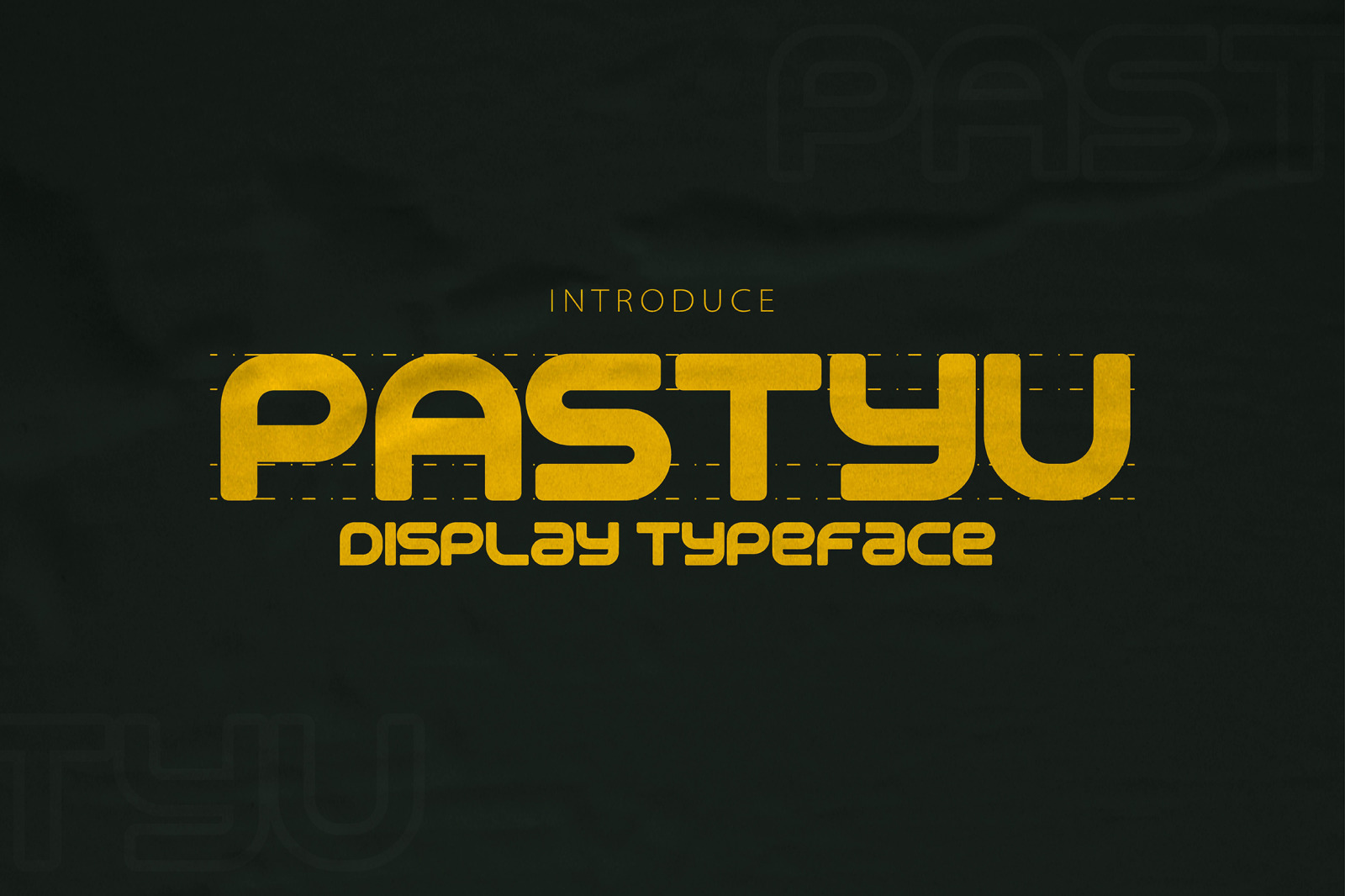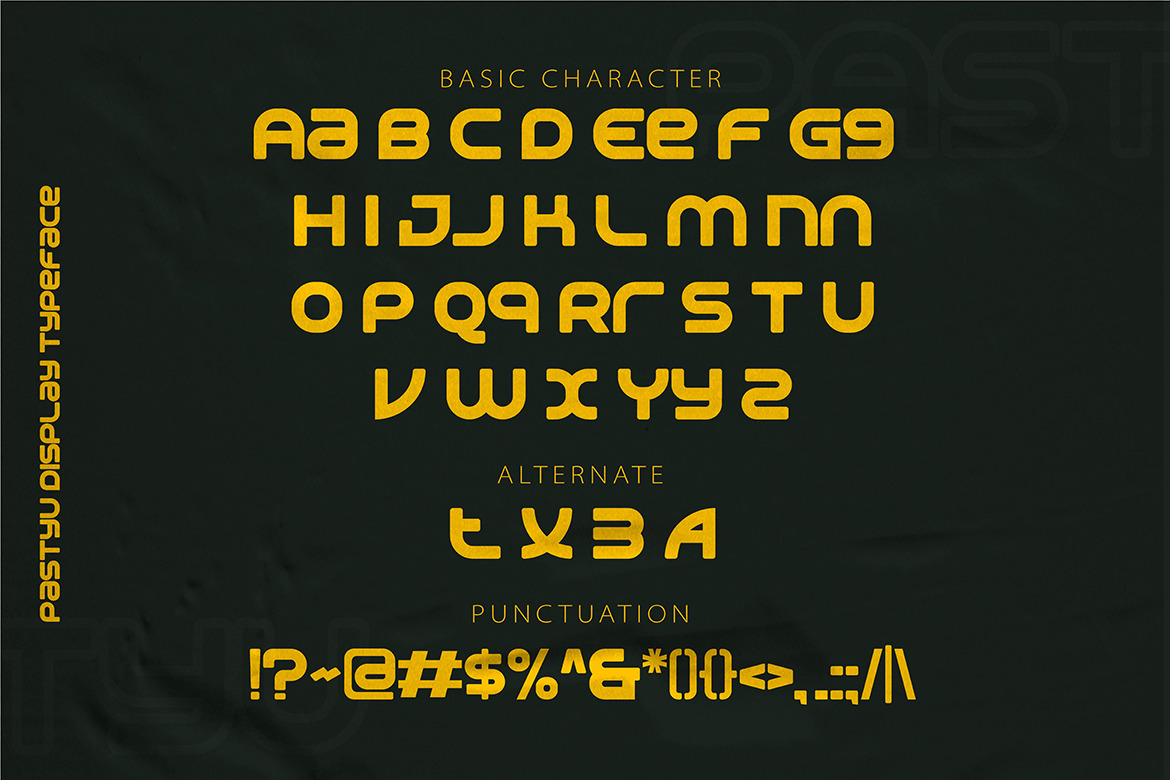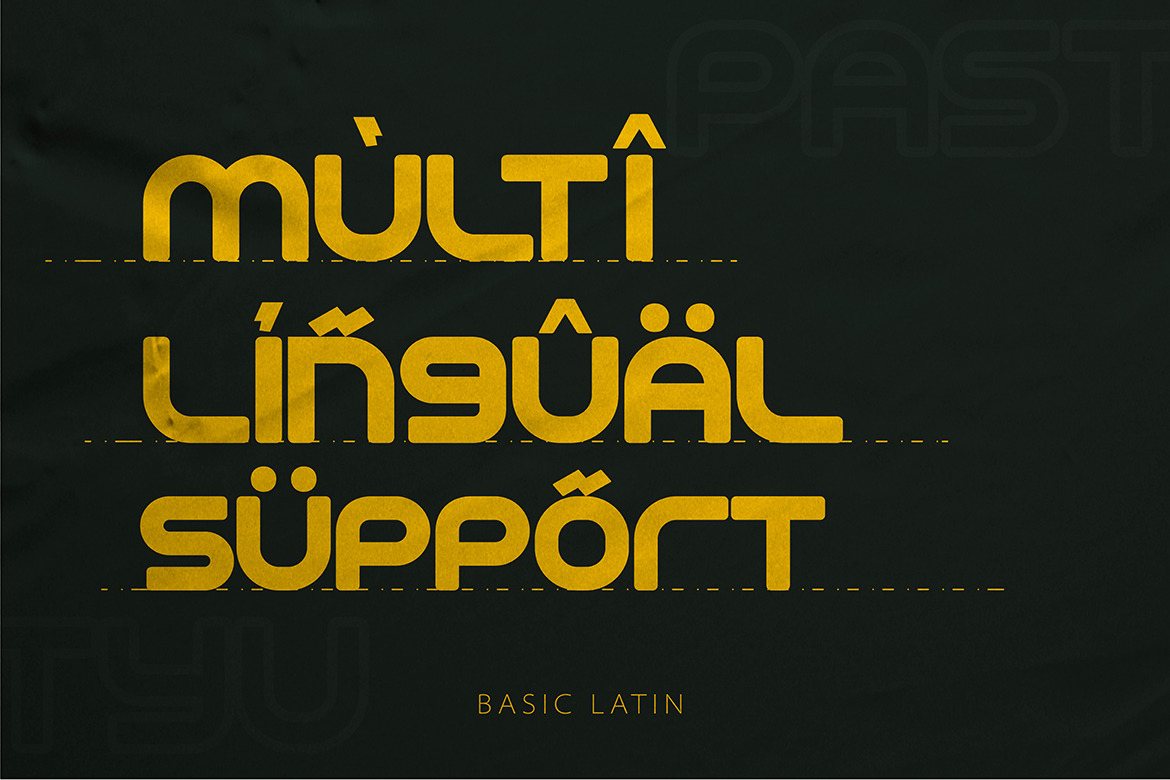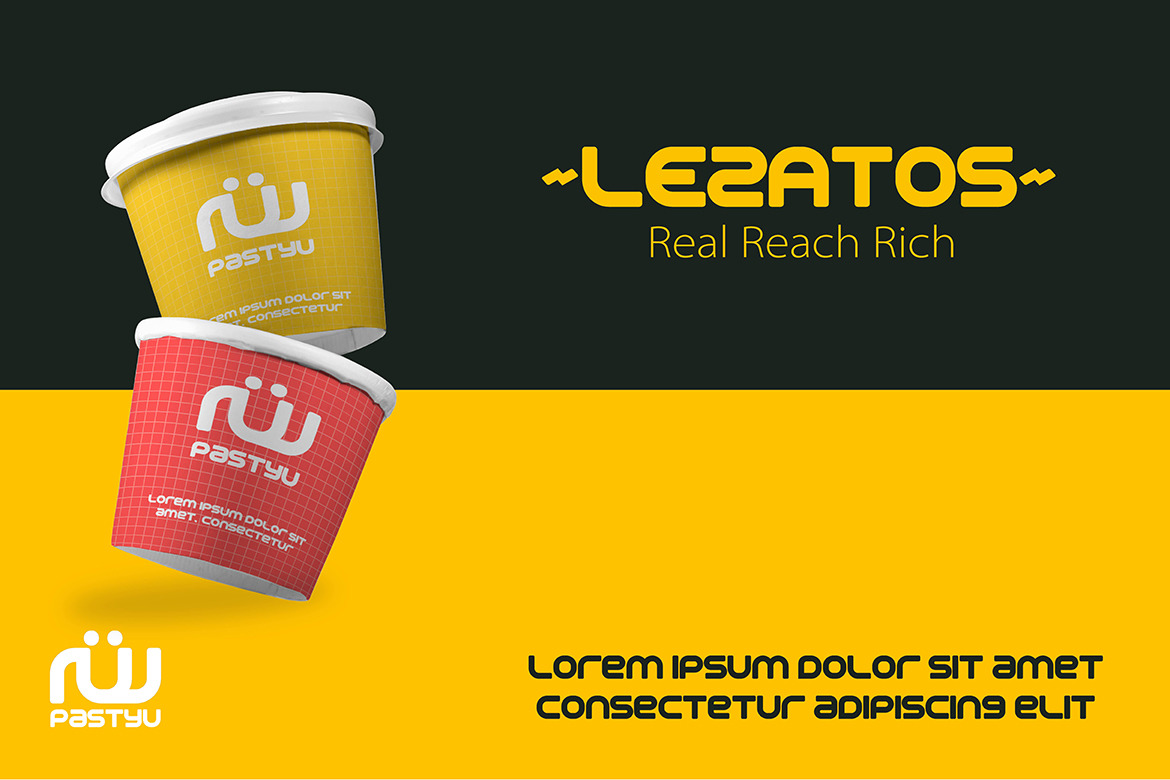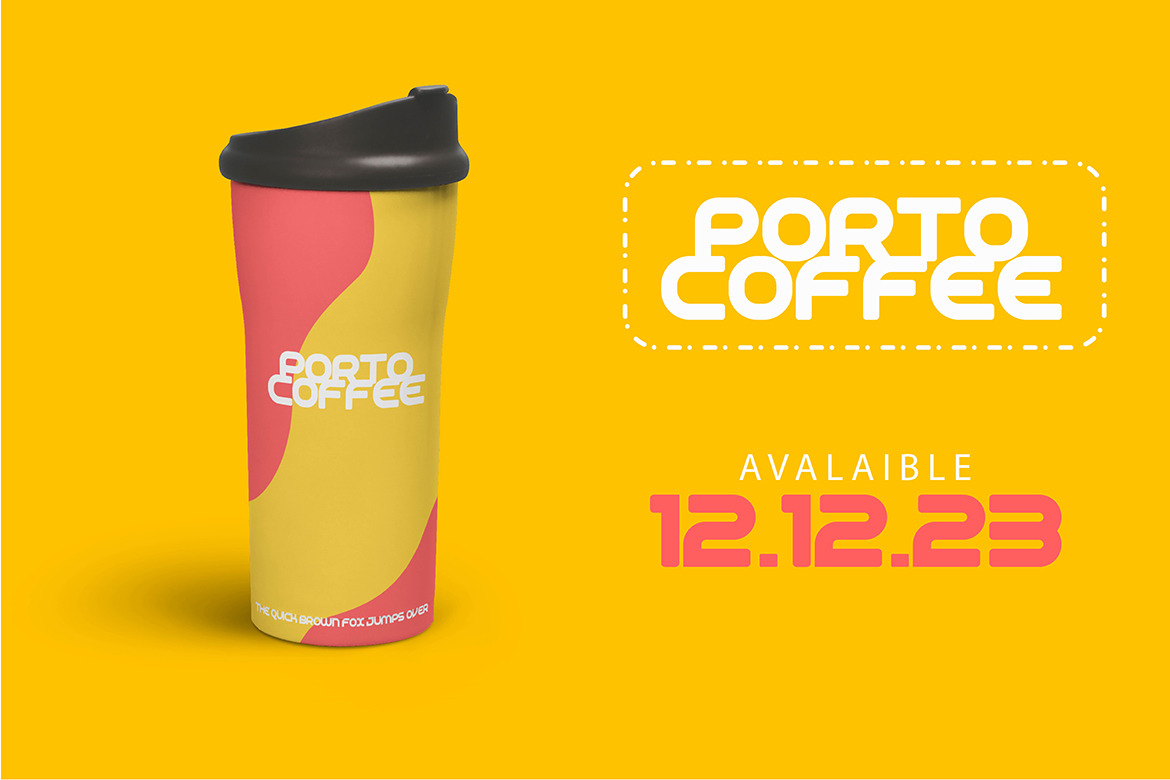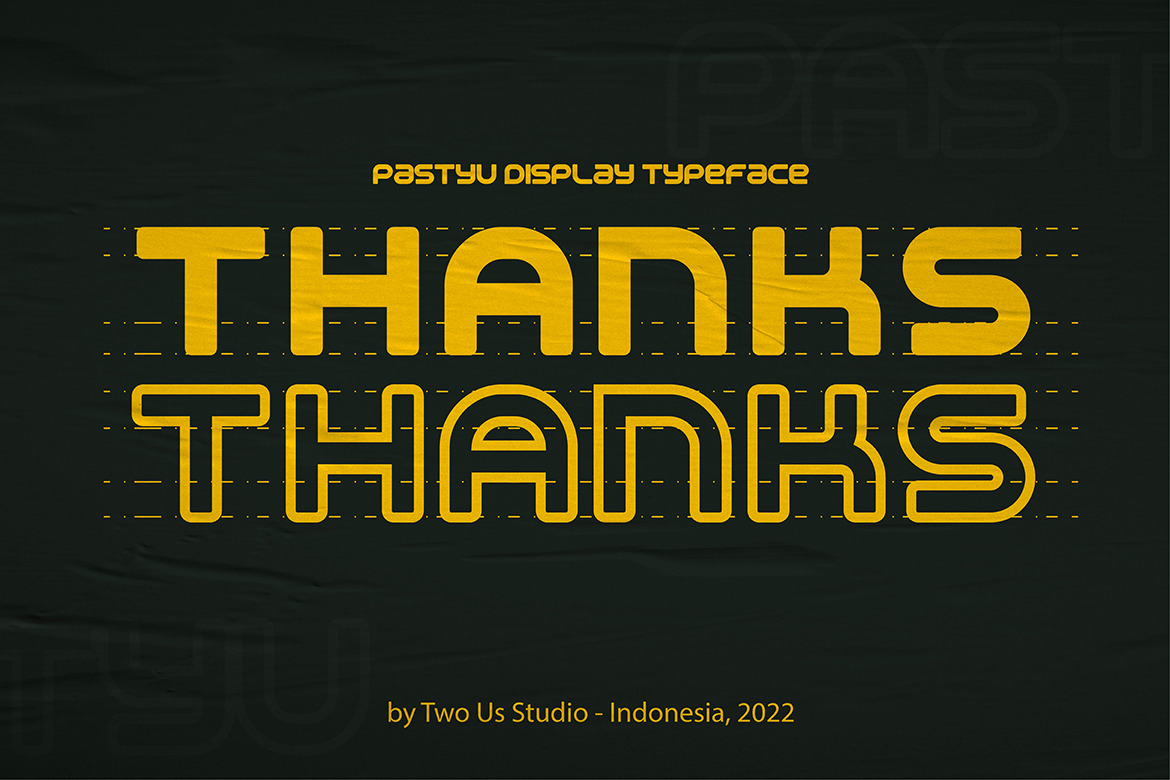
Pastyu - Display Typeface
Pastyu is a simple and modern display font. This bold and clean font can easily become your favorite. It can be used for books, magazines, social media posts, invitations, and so much more!